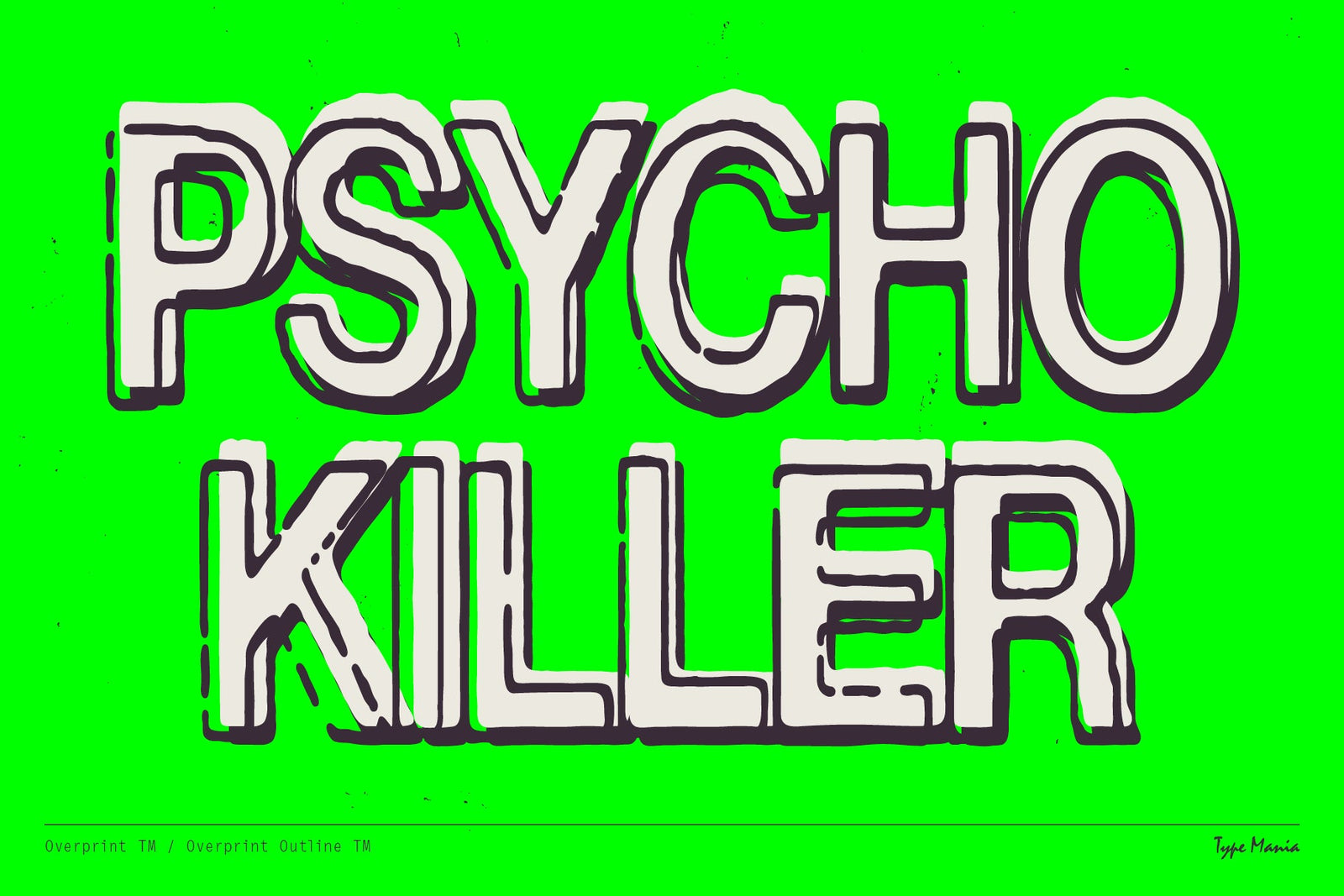
The Y2K Design Kit: 12 Fonts, Effects & Graphics Worth Adding to Your Arsenal
The turn-of-the-millennium look is everywhere right now, and honestly, it's not hard to see why. Chunky chrome type, CRT static, holographic foil, hand-drawn chaos: it's a visual language that still hits hard. Whether you're deep in a streetwear project or just need something with a bit more voltage, these twelve picks cover the full spectrum. There's plenty more worth digging through over in our effects catalogue too, but start here.
1. zünk - Y2K Hand-Drawn Typeface by Züli
zünk - Y2k Hand-Drawn Typeface
Ink that looks like it survived a photocopier and a rough night out. This hand-drawn display font brings the kind of wobbly, high-contrast rawness you'd find on a late-nineties flyer stapled to a telegraph pole. The letterforms have genuine character rather than manufactured personality, which makes a real difference at large sizes. Good for poster headlines, album art, and any branding that needs to feel like it was drawn by a human who meant it.
2. Overprint Outline TM by Type Mania
Overprint Outline TM
Two stylistic sets that rotate automatically with contextual alternates on, meaning no two words look identical as you type. The uneven edges and xeroxed finish build in the kind of inconsistency that usually takes a lot of manual effort to fake. It's got that bootleg-print energy: like something that came off a dodgy photocopier in 1998 and looked cooler for it. Poster and streetwear work will love this one.
3. Angelic Grunge Text & Logo Effect by Pixelbuddha
Angelic Grunge Text & Logo Effect
Spray-painted edges meet circuit-board overlays meet grainy halftone glow. This effect layers analog decay on top of something that feels vaguely technological, which gives it that uneasy, between-two-eras tension that defined the turn of the millennium visually. Strong for album covers and posters where you want the type to feel like it's breaking down in real time. If you're drawn to this kind of thing, browse more over in our distortion effects.
4. 100 CRT Scanned Textures V.02 by Züli
100 CRT Scanned Textures V.02
One hundred textures across ten-plus distinct CRT styles, all scanned at 4K resolution. These aren't digitally simulated screen effects; they're actual scans, which means the scan lines, bloom, and phosphor noise behave like the real thing when you drop them into a comp. Useful across poster work, social media graphics, and album art anywhere you need that low-fi monitor glow to feel genuinely physical rather than generated.
5. Mamoth Typeface by HVNTER
Mamoth Typeface
Soft, rounded, and kind of irresistible in a way that's hard to explain until you see it set large. The full character set covers A-Z in both cases, numerals, and symbols in a single OTF file, and the custom-softened letterforms sit somewhere between inflatable and hand-lettered. It carries a real sense of energy without shouting about it. Works particularly well for branding and social content that wants to feel bold without being aggressive about it.
6. Chrome Text & Logo Effect by Pixelbuddha
Chrome Text & Logo Effect
Glossy, volumetric, and cold as polished steel. This Photoshop effect takes flat type and pushes it into something that looks three-dimensional and chrome-plated, with that particular brand of reflective sheen that defined the era of Internet Explorer loading screens and DVD menus. Delivered as layered PSDs with layer styles, so you're not destructively committed. Strong pick for logo work, poster headlines, or any type treatment that needs to feel like it costs more than it does.
7. Obscura TM by Type Mania
Obscura TM
Three stylistic sets, all shuffling automatically as you type with contextual alternates enabled. The blurred letterforms create a woozy, out-of-focus effect that's somewhere between a long-exposure photo and a rave flyer left in a damp pocket. It shouldn't be legible at the level it is, but it works, and it works especially well for nightlife, poster, and social media content that wants to feel like it's vibrating slightly.
8. Kawaii Neon Bubble Text Effect by Matsero
Kawaii Neon Bubble Text Effect
Think candy-lacquered lettering with a Japanese pop culture energy and a sugar-rush colour palette. This text effect template brings glossy, dimensional type that reads as maximalist in the best possible way: loud, vibrant, and deliberately over the top. It's built for headlines that need to stop the scroll, and it earns that attention. Social media graphics and album art are the obvious applications, but it'll push boundaries anywhere you let it.